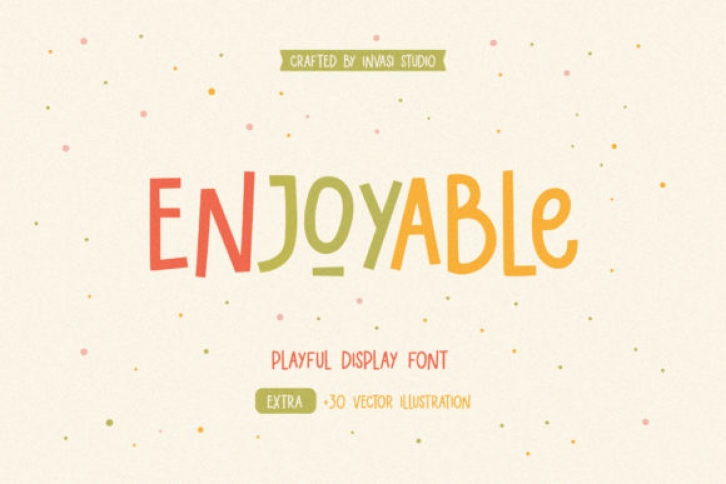
Enjoyable is a fun, quirky and jolly display font. Whether you use it for cartoon related designs, children games or just any creation that requires a lovely touch, this font will be an amazing choice.